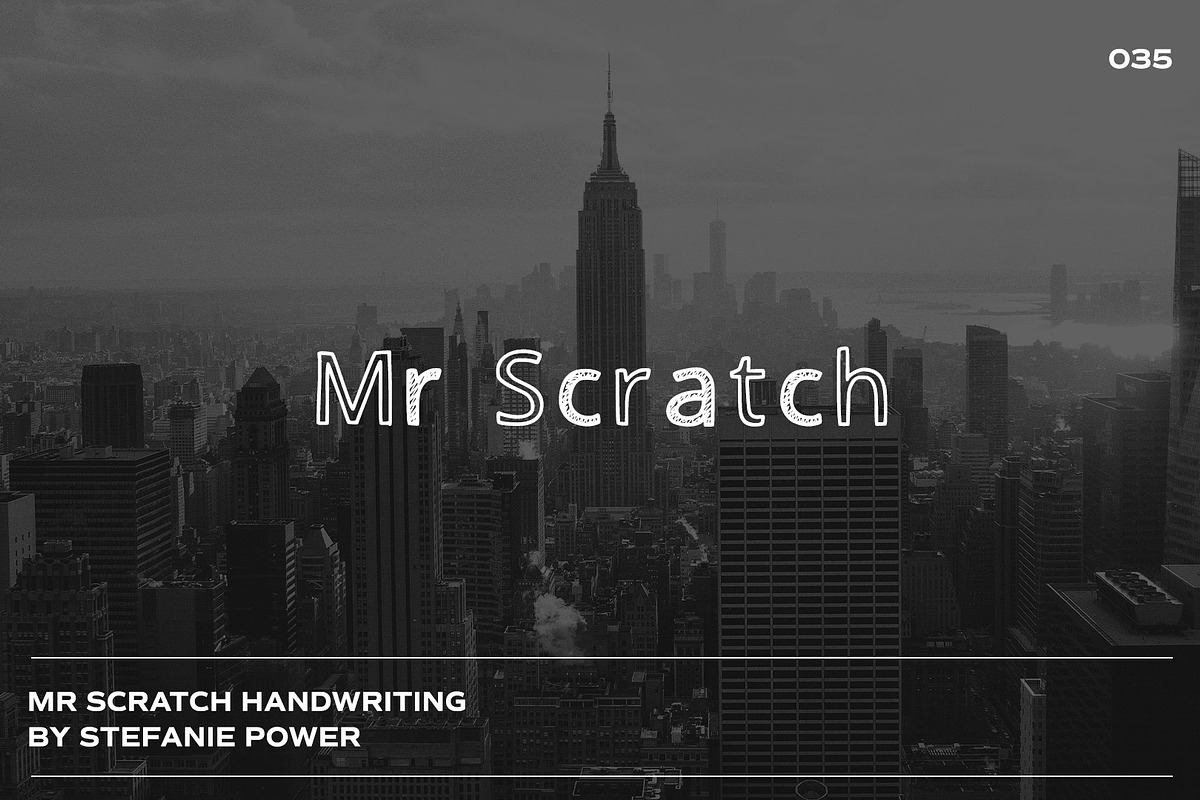
Mr Scratch | Handwritten Font Free Download
Mr Scratch | Handwritten Font Free Download is a raw and expressive typeface that brings an edgy, personal touch to your designs. With its rough strokes and authentic marker-like texture, Mr Scratch is perfect for posters, album covers, edgy branding, streetwear, and handwritten-style quotes.
This font captures the energy of fast, emotional handwriting—ideal for creatives who want their work to feel bold, unfiltered, and real. Whether you're working on zines, stickers, or grunge-inspired graphics, Mr Scratch delivers character in every letter.